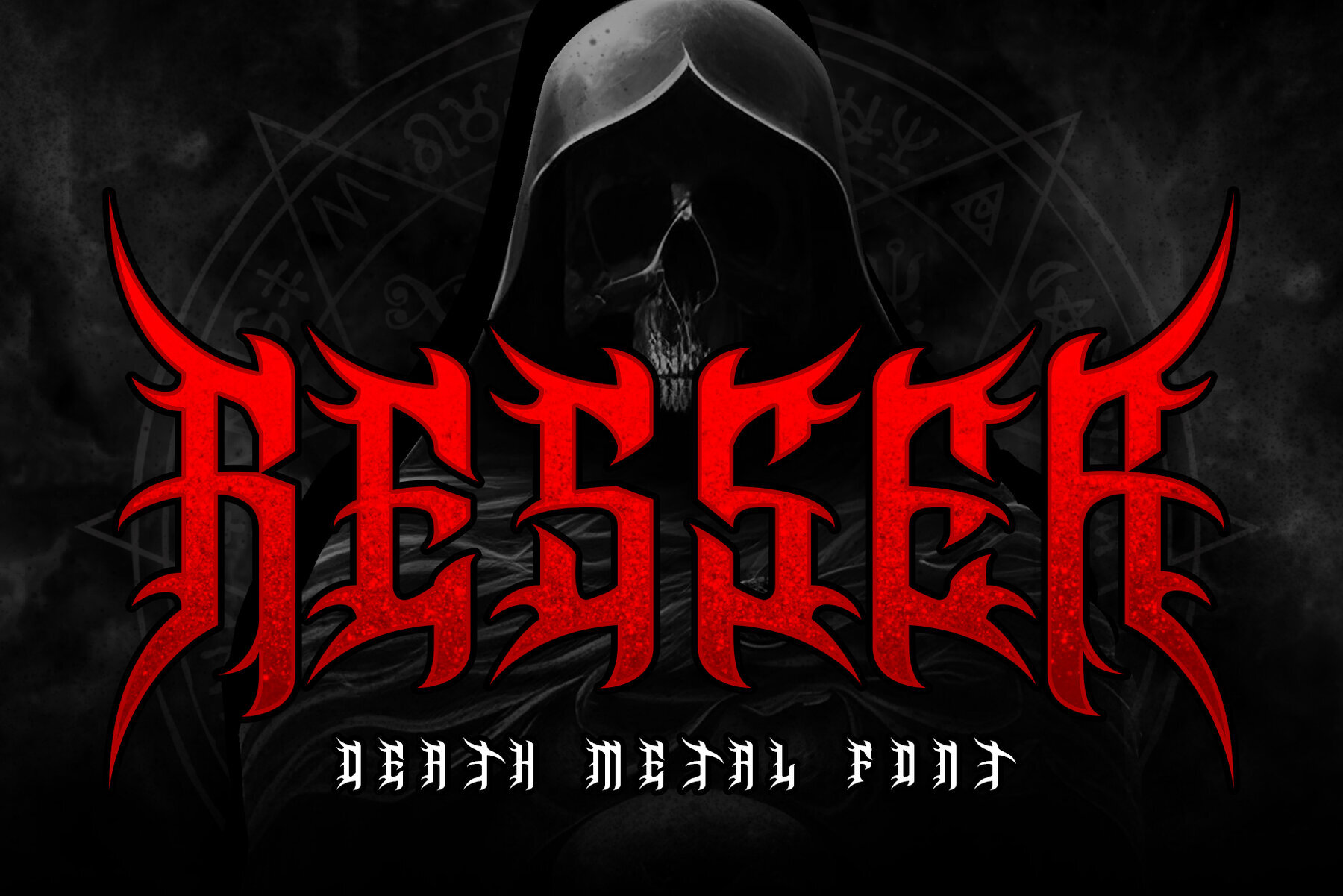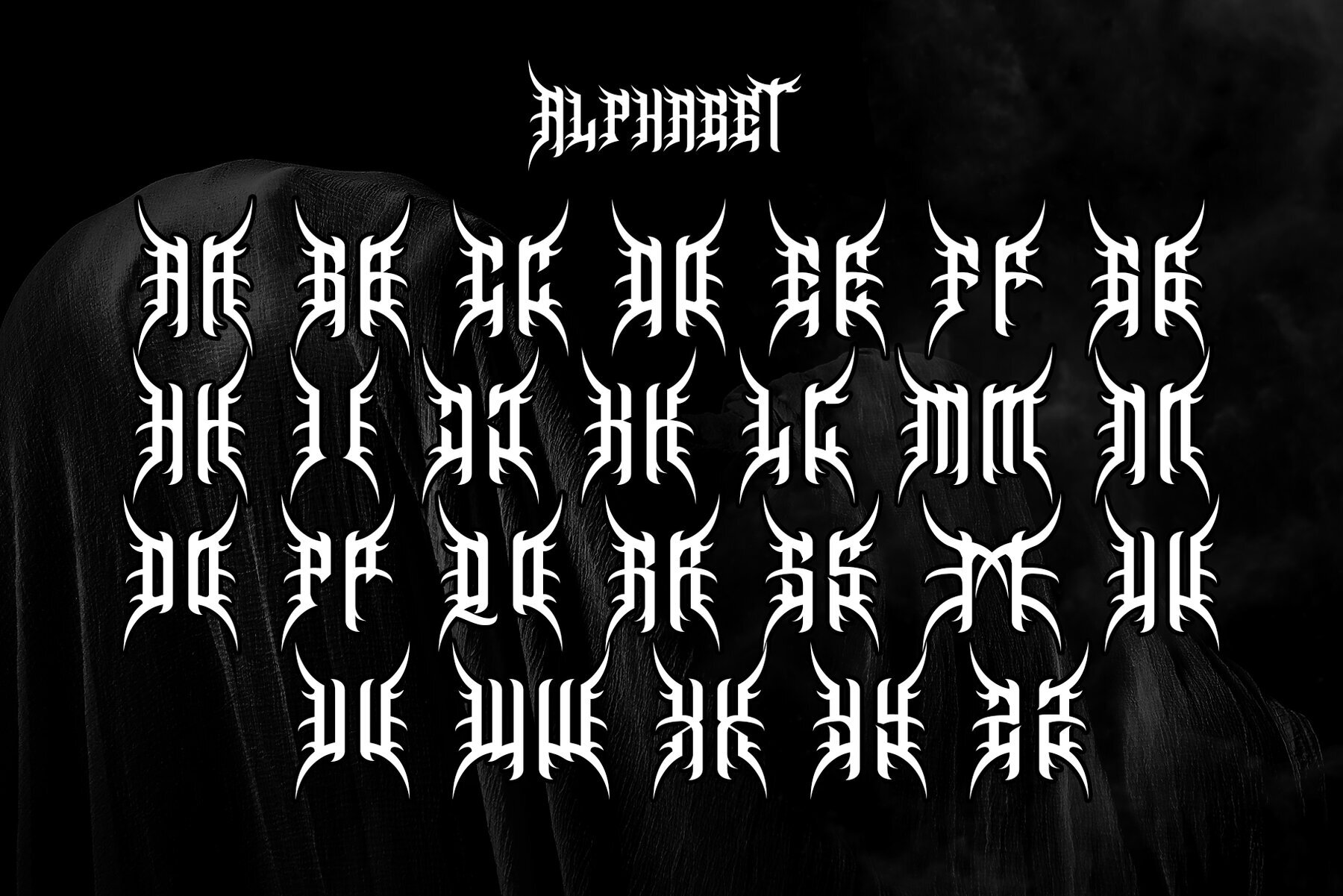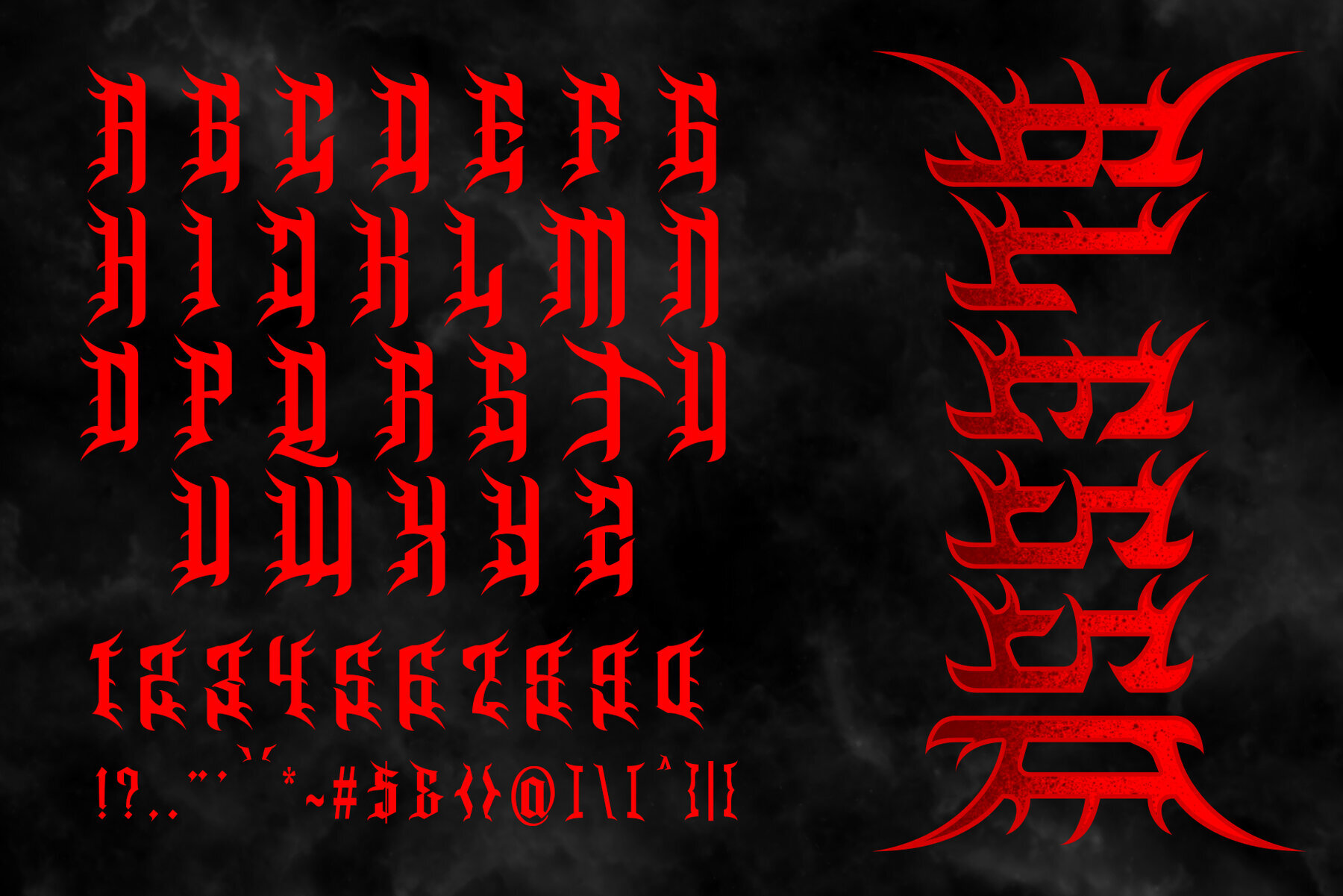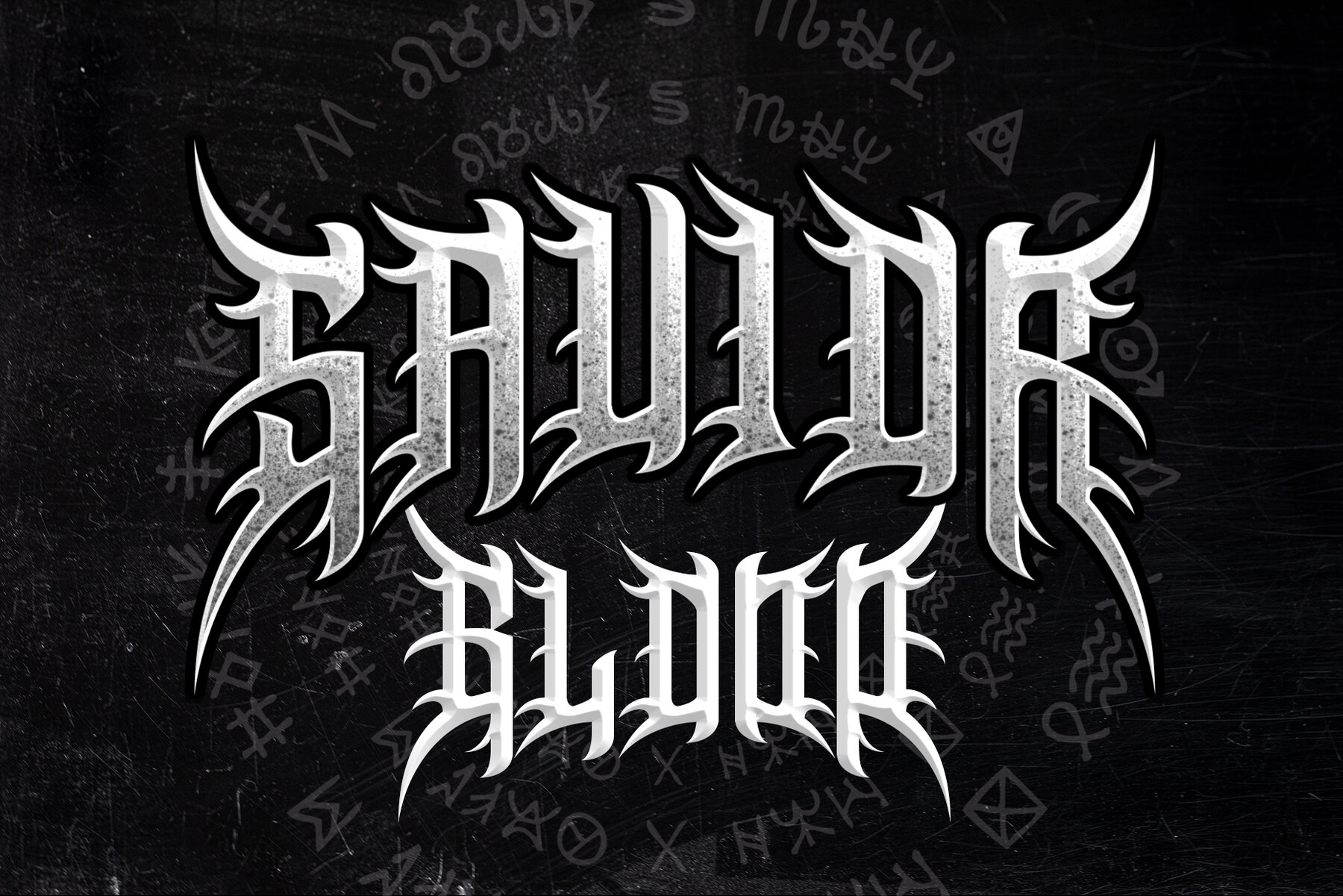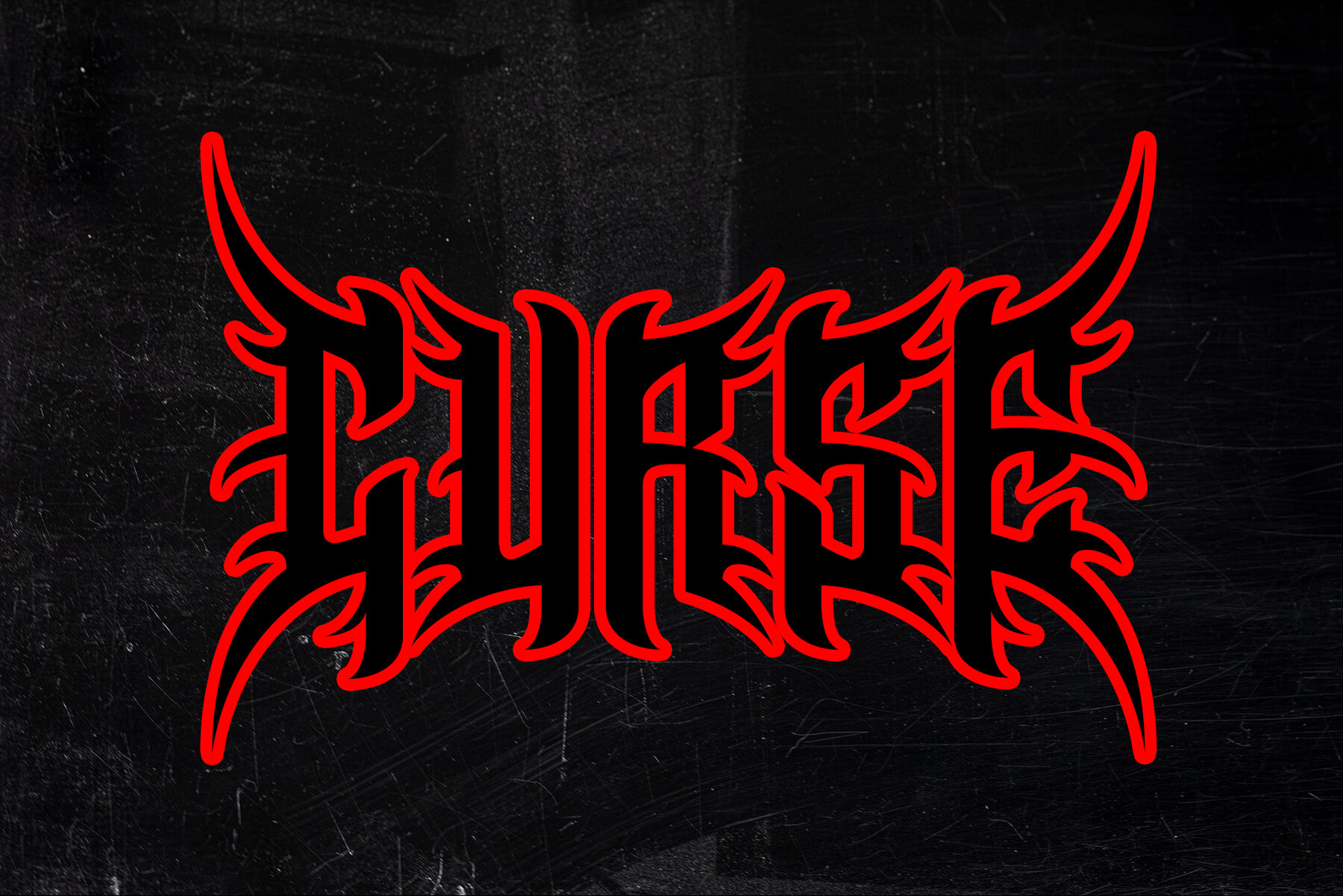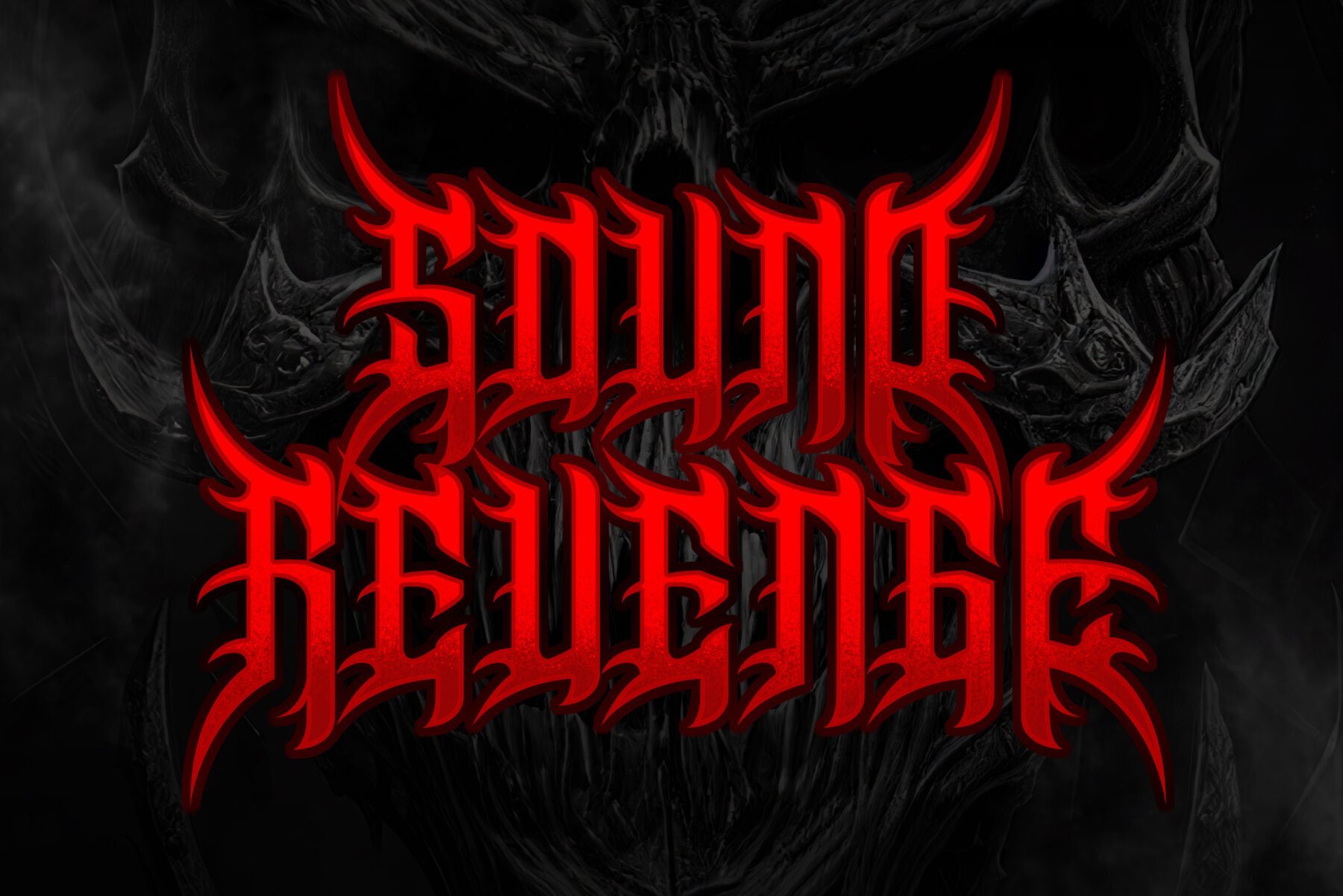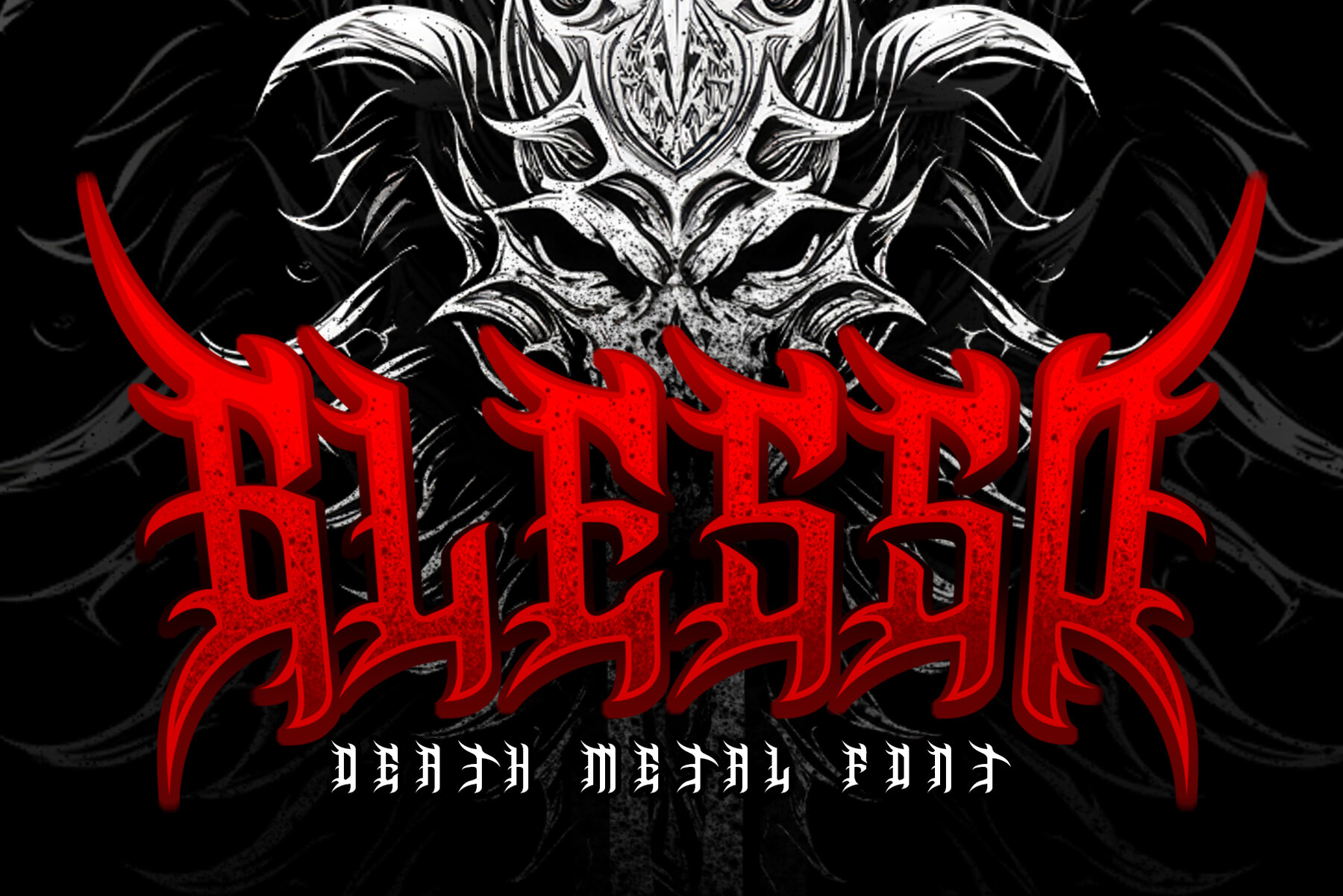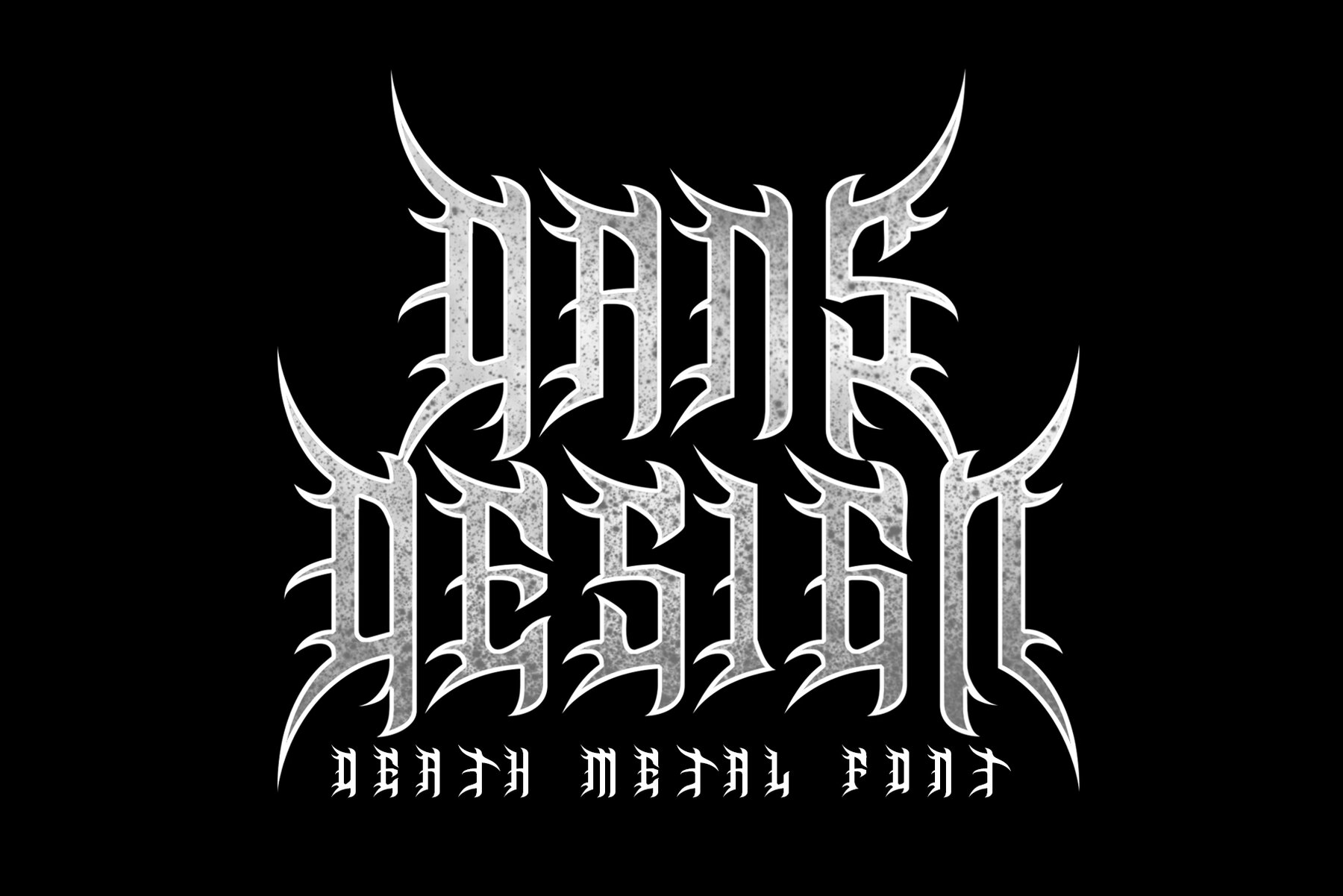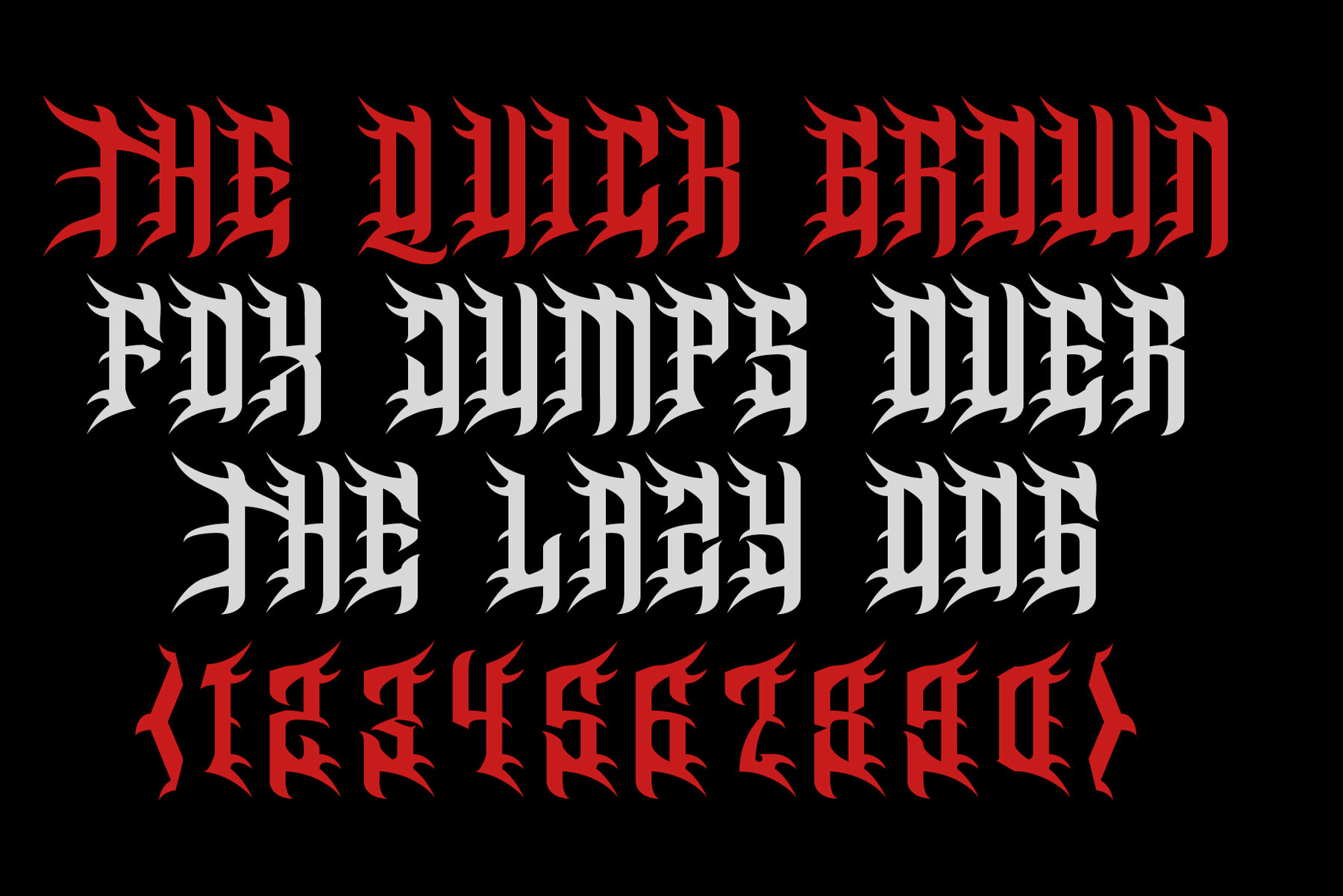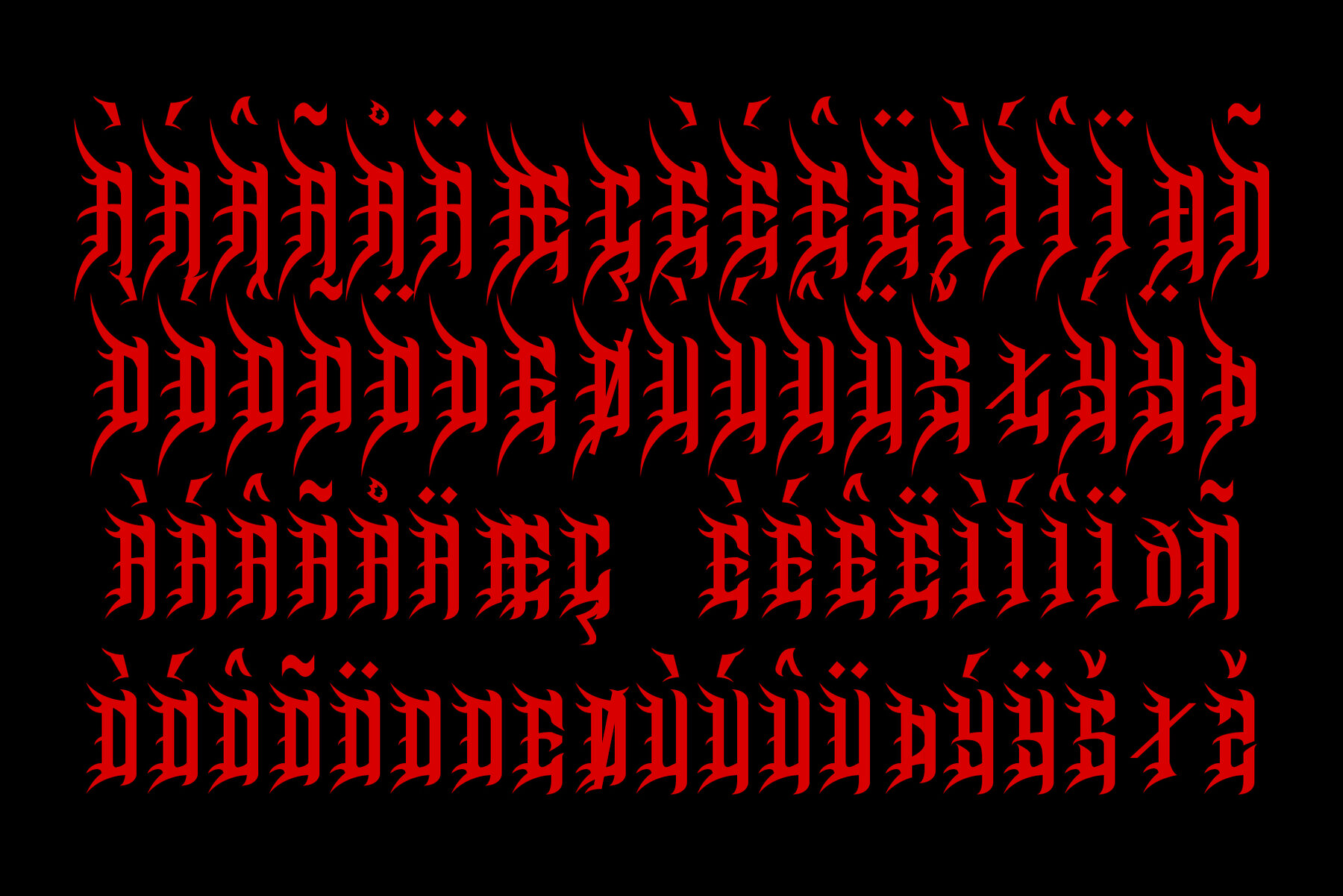
ResseR Font
ResseR
ResseR brings a fusion of heavy metal energy and the dramatic flair of gothic blackletter design. This bold typeface is meticulously crafted with sharp edges and strong strokes, offering a distinctly aggressive aesthetic. Ideally suited for metal band logos, music posters, and album covers, it also enhances tattoo designs, streetwear branding, and horror artwork. Its vintage-inspired design ensures a dark and intense vibe.ResseR: Modern Metal Font